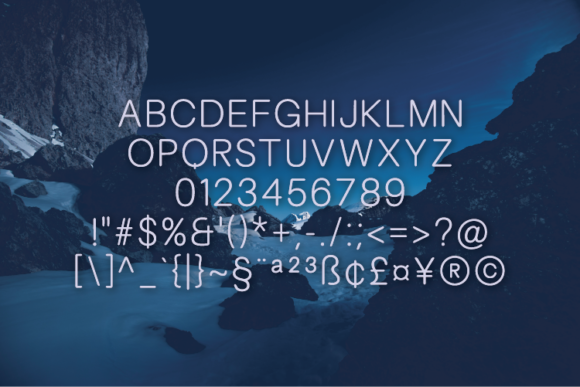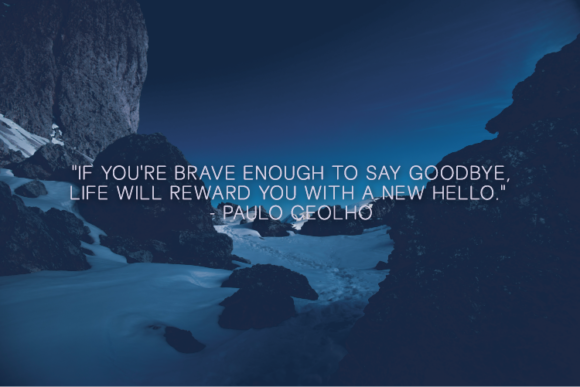
The Perfect Companion for Your Next Creative Project
Have you ever stared at a blank page, trying to come up with the perfect font to match your vision? We’ve all been there – the frustration of scrolling through endless options, the excitement of discovering a new favorite, and the agony of choosing the wrong one. But what if you could find a font that effortlessly complements every project you’re working on?
Enter Addisand Font, a simple yet versatile sans serif font designed to make your creative process a breeze. With its clean lines and modern aesthetic, Addisand Font is perfect for displays, headers, invitations, save the dates, weddings, and so much more. As a designer, you know how valuable it is to have a reliable font that can elevate your work and make it stand out. Addisand Font is that trusted companion, always ready to help you bring your ideas to life.
Addisand Font Key Features
- Font Size: The font size is 1,024 glyphs, providing a comprehensive set of characters for various languages and scripts.
- Language Support: Addisand Font supports multiple languages, including Latin, Cyrillic, and various non-Latin scripts, catering to a diverse range of users.
- Unique Characteristics: The font features a distinctive, modern design with a blend of geometric and organic elements, making it suitable for a wide range of design applications.
- Scalability: Addisand Font is highly scalable, allowing it to be used effectively in various font sizes and resolutions without compromising its quality.
Addisand Font Review
As a designer, I was excited to try out the Addisand font, but my experience was a mixed bag. Here’s my honest review.
- The Addisand font has a unique and modern aesthetic that’s perfect for creative projects. Its rounded edges and subtle flair give it a friendly and approachable feel.
- It’s highly legible, even at smaller font sizes, making it a great choice for body text and captions.
- The font comes in a range of weights and styles, giving you plenty of options to customize your design.
- The Addisand font is not ideal for formal or professional projects, as its casual vibe may not be suitable for corporate or academic contexts.
- It may not be the best choice for headings or titles, as it can get lost in larger font sizes.
- The font is not as extensive as some other font families, with limited language support and no italic styles.
The Addisand font is a great choice for creative projects that need a friendly and approachable feel. While it has some limitations, its unique aesthetic and high legibility make it a solid addition to any designer’s toolkit.
Getting the Most Out of Addisand Font
Use the Addisand font for headings and titles to create a bold and eye-catching effect.
Pair it with other fonts for body text to create visual interest.
Experiment with different font sizes and colors to achieve the desired look.
Use Addisand font for:
– Headings and titles
– Creative and artistic projects
– Any project where a unique and bold font is desired
Alternatives to Addisand Font for Designers
1. Inter Font
Inter Font is a highly legible sans-serif typeface designed by Rasmus Andersson. It’s ideal for use in digital interfaces, such as websites, apps, and video games. Inter Font is a great alternative to Addisand Font for designers who want a clean, modern, and versatile sans-serif font.
Inter Font is more versatile than Addisand Font, with a wider range of weights and styles, making it suitable for various design applications.
2. Public Sans
Public Sans is an open-source sans-serif typeface designed by Caroline Hadilaksono and Ale Paul. It’s designed for use in digital interfaces, such as websites, apps, and social media platforms. Public Sans is a great alternative to Addisand Font for designers who want a clean, modern, and highly legible sans-serif font.